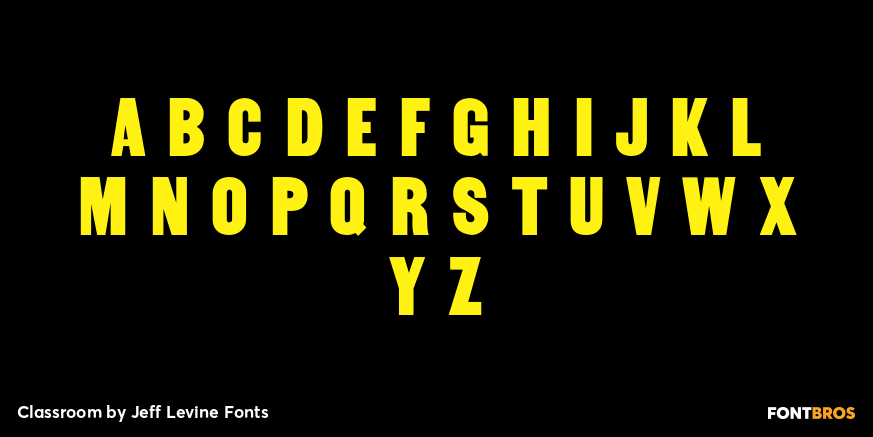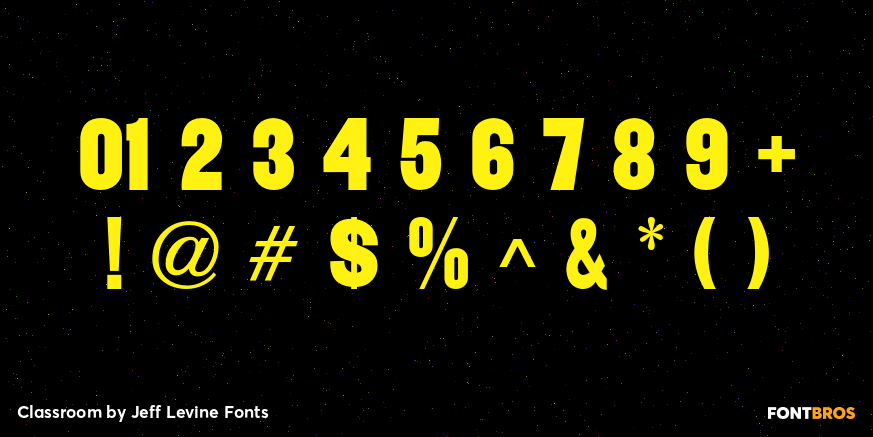
Classroom
A set of old die-cut cardboard letters and numbers used by teachers directly on bulletin boards or for tracing was the inspiration for Classroom JNL. In turn, these letters take their cue from typefaces such as Franklin and earlier wood type designs.